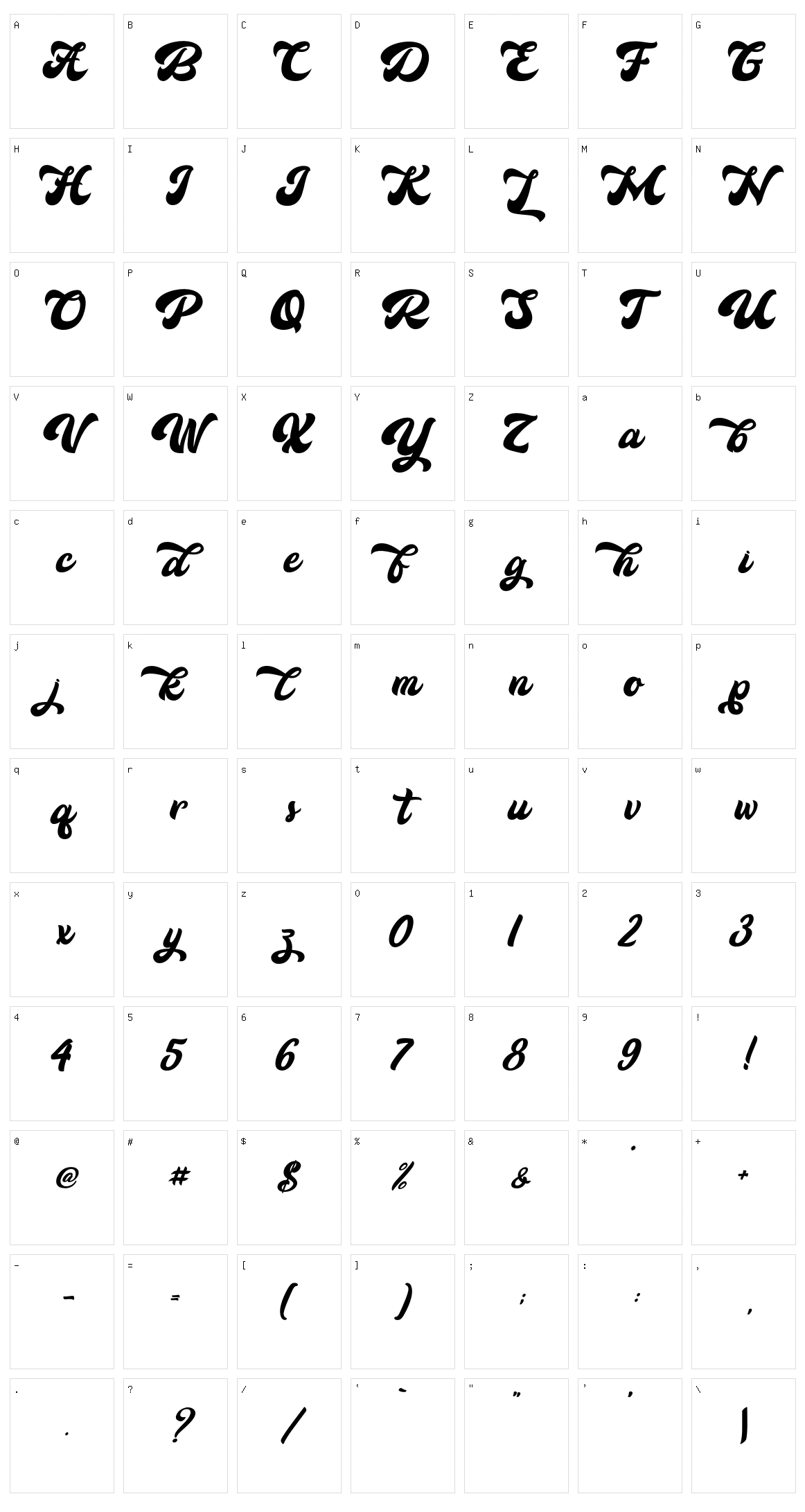
The free font Hoka Red is carefully designed by Typhoon Type? - Suthi Srisopha, showcasing a thoughtful balance of creativity and usability and falls under the Old-School font style. When you download the ZIP file, it contains only 112.9 KB of font files, making it lightweight and quick to download. Please review the license details below to understand permitted usage and distribution rights. If license information is not available, we recommend using this font for personal projects only or contacting the author directly for commercial usage permissions.